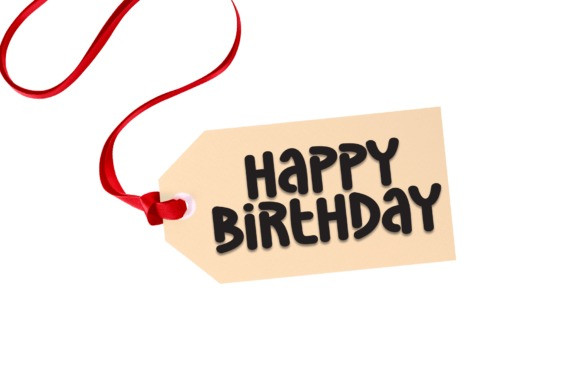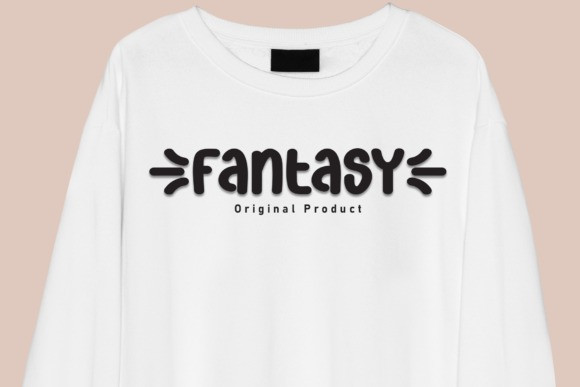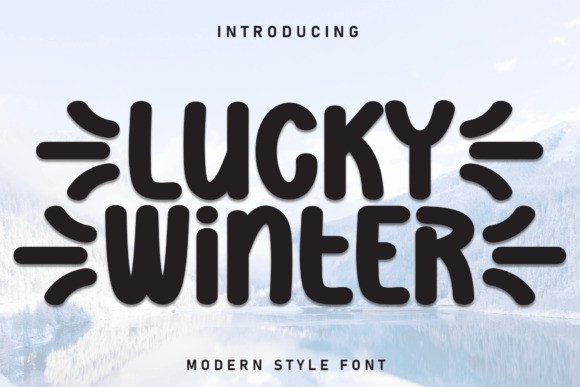
Lucky Winter Font
Lucky Winter Font is a sweet and friendly handwritten font. Its natural and unique style makes it incredibly fitting to a large pool of designs. The only limit is your imagination!